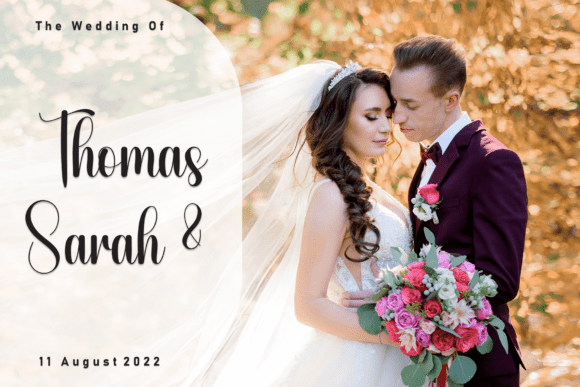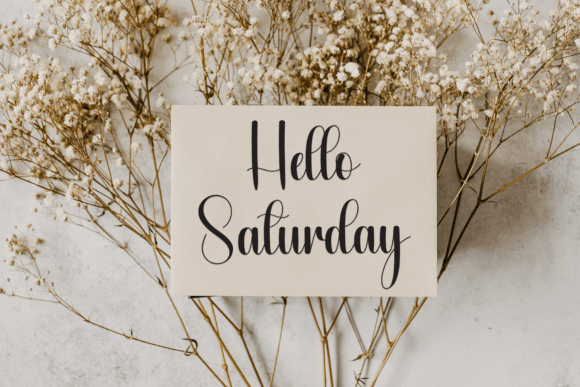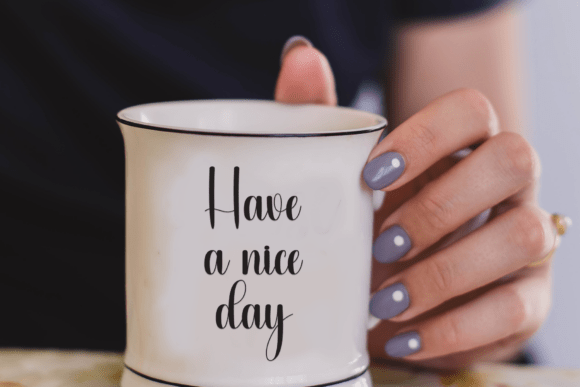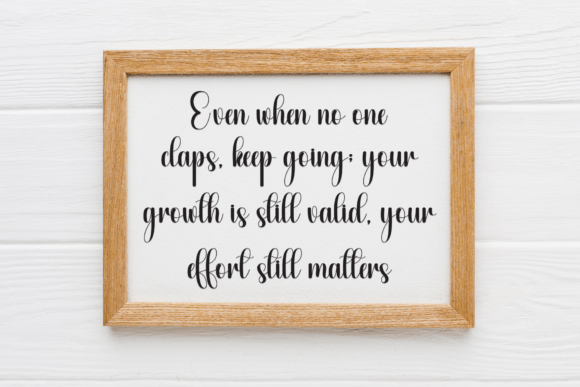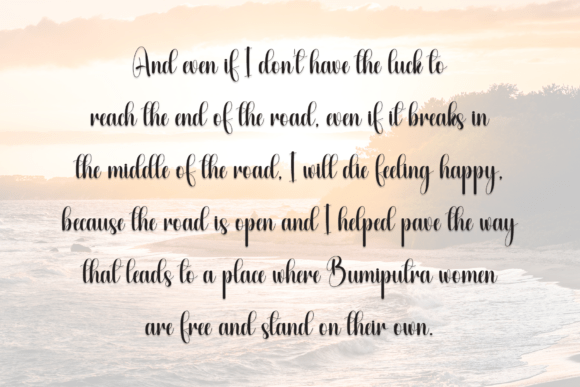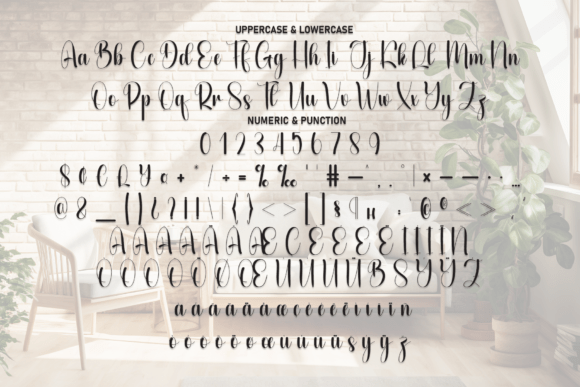
Unleash the Whimsy: Introducing Boho Font
Have you ever been browsing through a vintage market, stumbled upon a quirky antique shop, or flipped through a stack of old love letters, and felt an instant rush of creative inspiration? That’s exactly what happens when you come across the Boho Font – a delightful, warm, and personable handwritten script font with a touch of whimsy.
Perfect for wedding invitations, greeting cards, or any design project that needs a sprinkle of fun, the Boho Font is a game-changer for designers. Its unique charm and sophistication make it an invaluable addition to any creative venture. Whether you’re a seasoned designer or just starting out, the Boho Font is sure to add a playful yet elegant touch to your work.
Key Features of Boho Font
- Unique Characteristics: Boho Font features a unique blend of bohemian and vintage elements, with intricate details and ornate flourishes.
- Font Style: The font is available in a single style, but with multiple weights and ligatures to provide a wide range of design options.
Boho Font Review
Overall, I’d say the Boho Font has its charm, but it’s not without its flaws. Let’s break it down.
- Unique aesthetic: Boho Font has a distinct, eclectic vibe that can add character to any design.
- Good for creative projects: Its unconventional style makes it perfect for artistic, bohemian-inspired projects.
- High-quality rendering: The font is crisp and clear, making it suitable for various design applications.
- Overly ornate: The font’s intricate details can be overwhelming in certain contexts, making it difficult to read.
- Limited legibility: In small text sizes or when used for body text, the font can become hard to decipher.
- No clear use for formal designs: Due to its bohemian nature, the font may not be suitable for professional or corporate projects.
Overall, I’d give the Boho Font 3.5 out of 5 stars. While it excels in creative projects and has a unique charm, its limitations make it less versatile than other fonts. Still, it’s a great addition to any designer’s toolkit, especially for those who need a touch of whimsy in their designs.
Tips for Getting the Most Out of Boho Font
For the best results, use the Boho Font in combination with bold and italic font styles to create a visually appealing design.
Experiment with different font sizes and colors to add depth and dimension to your design.
The Boho Font is ideal for:
- Artistic and creative projects
- Travel and adventure branding
- Any design project that requires a unique and eclectic touch
Alternatives to Boho Font for Designers
Great Vibes is a beautiful, handwritten font that is perfect for adding a touch of elegance and sophistication to your designs. It’s ideal for use in branding, advertising, and editorial projects where a personal and whimsical feel is desired. Great Vibes is similar to Boho Font in its playful and artistic nature, but it has a more refined and polished look.
Pacifico is a stunning, cursive font that is reminiscent of the classic scripts of the past. It’s ideal for use in packaging, signage, and web design projects where a relaxed and beachy vibe is desired. Pacifico is similar to Boho Font in its carefree and laid-back nature, but it has a more modern and sleek look.
Carolyna Pro is a modern, handwritten font that is perfect for adding a touch of sophistication and elegance to your designs. It’s ideal for use in branding, advertising, and editorial projects where a personal and refined feel is desired. Carolyna Pro is similar to Boho Font in its artistic and whimsical nature, but it has a more polished and refined look.